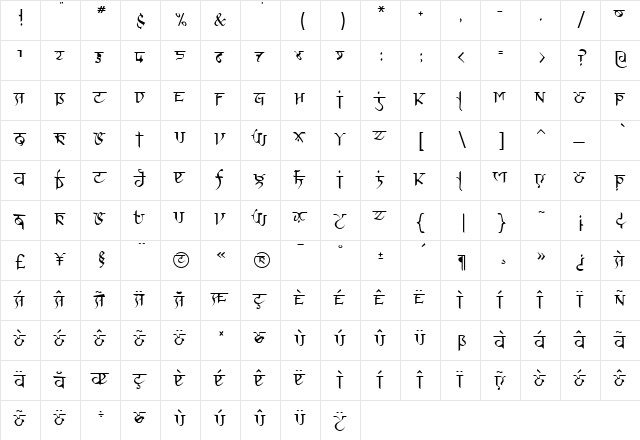
DevineTown Regular
Design Context for DevineTown Typeface
DevineTown is a composed and adaptable typeface that performs quietly and consistently across a wide range of design contexts.